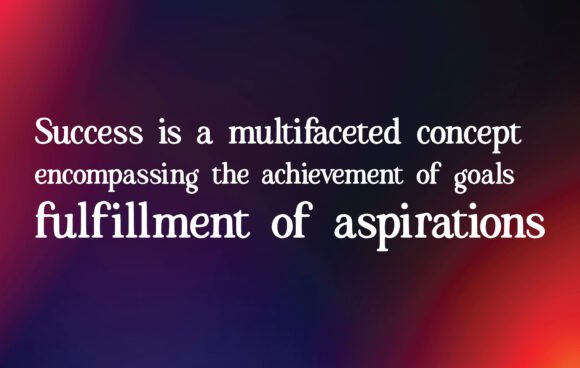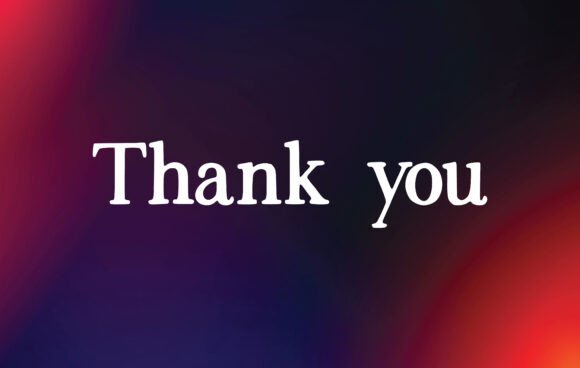
The Ultimate Design Companion: Aziley Font
I’ll never forget the time I was working on a magazine cover design, staring at my screen, and struggling to find the perfect font. My client wanted something that was both stylish and easy to read, but I just couldn’t seem to find the right fit. That’s when I discovered Aziley Font, and it quickly became my go-to favorite. In this article, I’ll share with you why Aziley Font is a versatile, eye-catching, and incredibly useful addition to your design toolkit.
What Makes Aziley Font Special?
Aziley Font is designed to be a favorite among designers, crafters, and creative hobbyists. Its clear and easy-to-read design makes it perfect for both titles and body text. Whether you’re designing magazine covers, t-shirts, social media posts, branding, wedding invitations, or greeting cards, Aziley Font fits right in with style and personality.
- ✨ Versatile: Aziley Font is incredibly versatile, making it perfect for a wide range of design projects.
- ✅ Easy to Read: Its clear and clean design ensures that your text is always easy to read, even at small sizes.
- 💡 Eye-Catching: Aziley Font has a unique and stylish design that will make your projects stand out.
While Aziley Font is an amazing design tool, there are a few things to keep in mind:
- 🤔 Limited Language Support: Aziley Font may not support all languages, so be sure to check the character set before using it for a project.
- ⚠️ Not Suitable for Body Text: While Aziley Font is easy to read, it’s not the best choice for long blocks of body text. Consider using a serif font for those projects.
The Designer Inspiration Behind Aziley Font
Aziley Font was designed with the modern designer in mind. Its creator wanted to create a font that was both stylish and functional, with a unique personality that would stand out in any design project. The result is a font that’s perfect for designers, crafters, and creative hobbyists who want to add a touch of elegance and sophistication to their work.
Q: What is Aziley Font?
A: Aziley Font is a versatile and eye-catching font that’s perfect for a wide range of design projects.
Q: Is Aziley Font easy to read?
A: Yes, Aziley Font is designed to be clear and easy to read, making it perfect for both titles and body text.